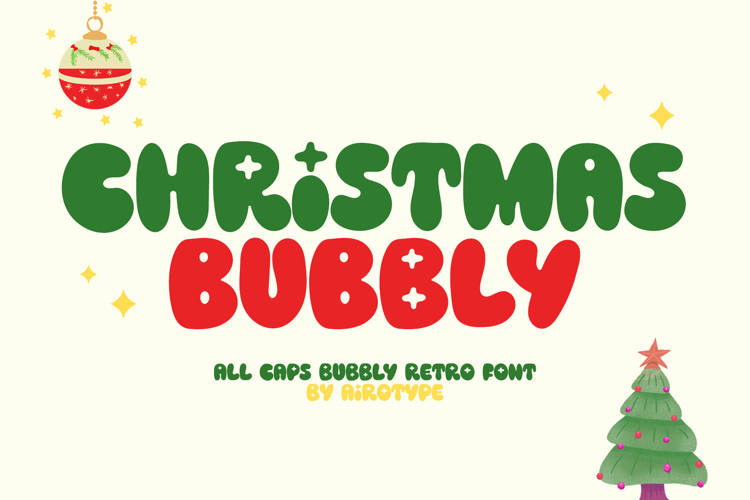
Christmas Bubbly is all caps bold font with cute and fun vibes. This font infuse the joy and festive into the design work.
Christmas Bubbly is perfectly cute for design that needs retro and fun vintage vibes, such as Christmas, New Year, Thanksgiving, stickers, crafting, sublimation, and many more.
- All Caps
- Numeral and Punctuation
- Most Multilingual Accent